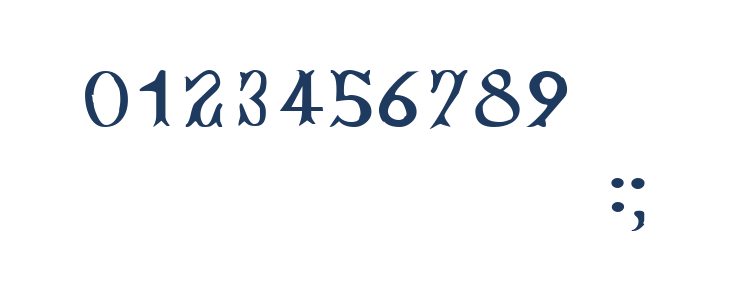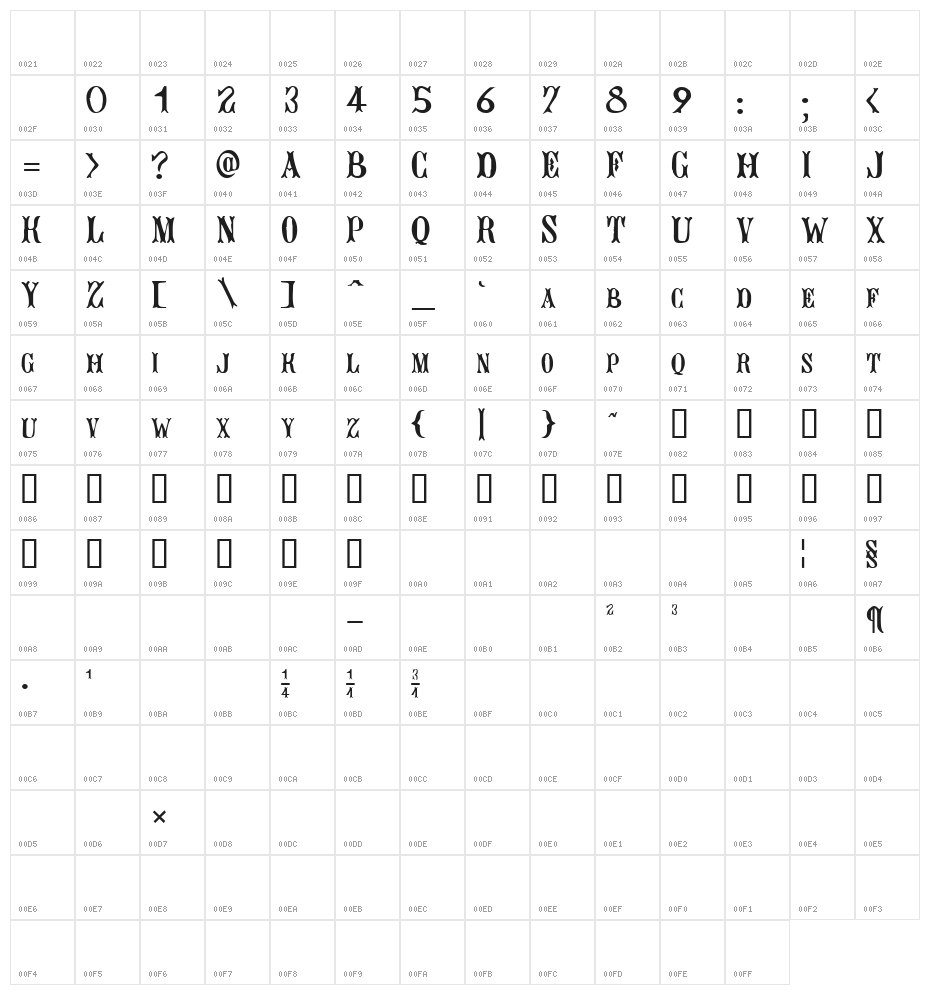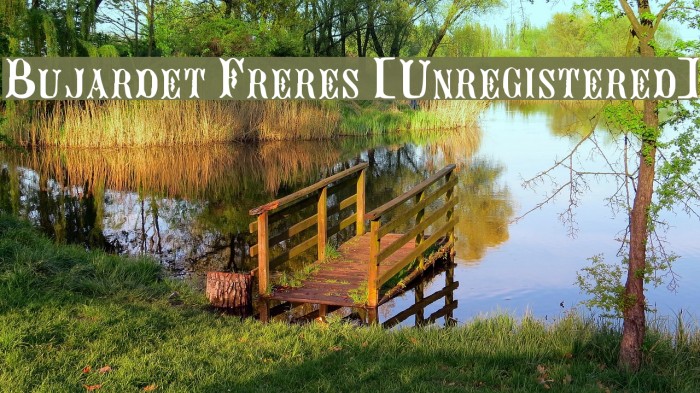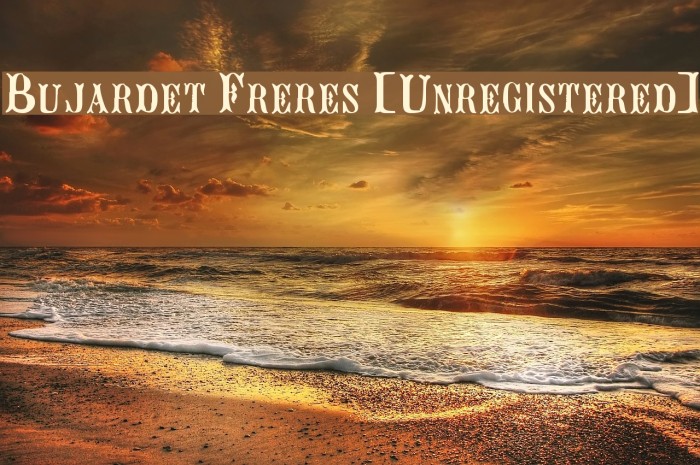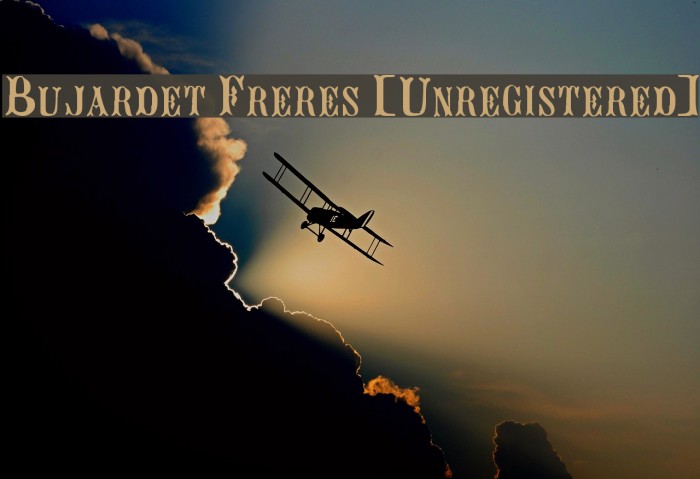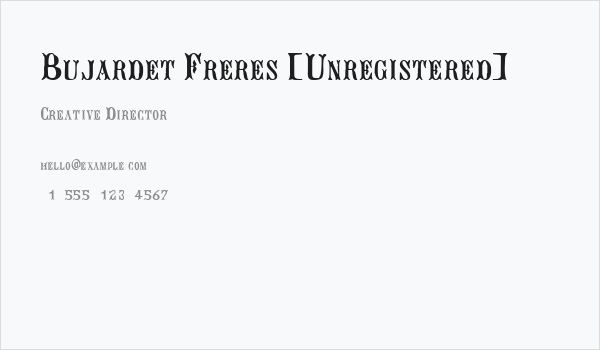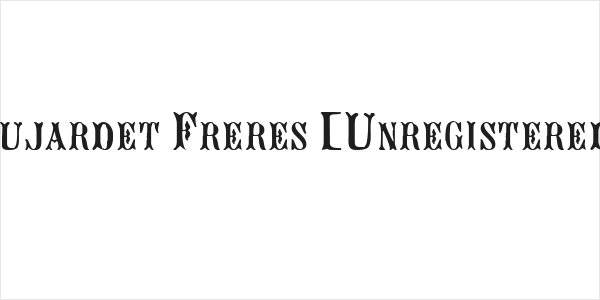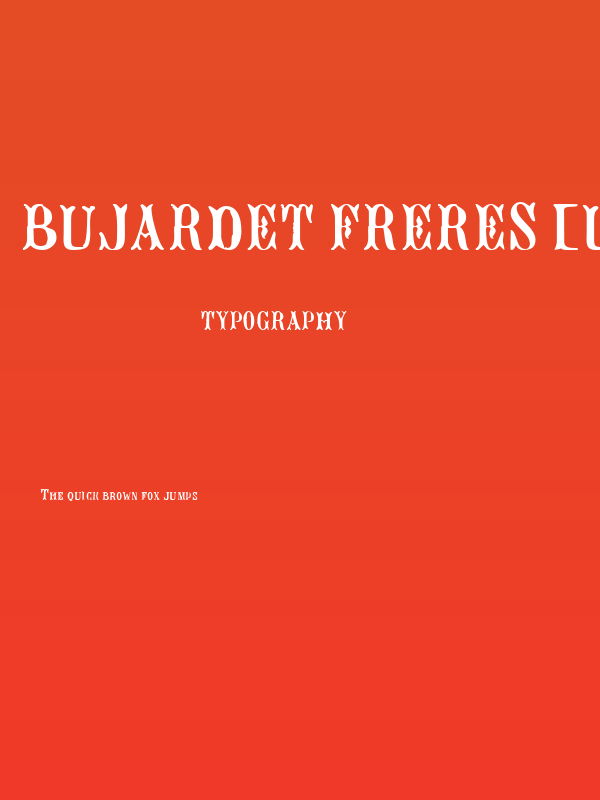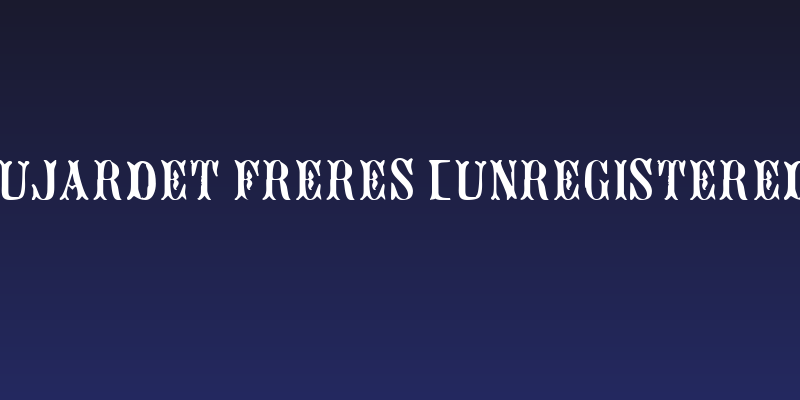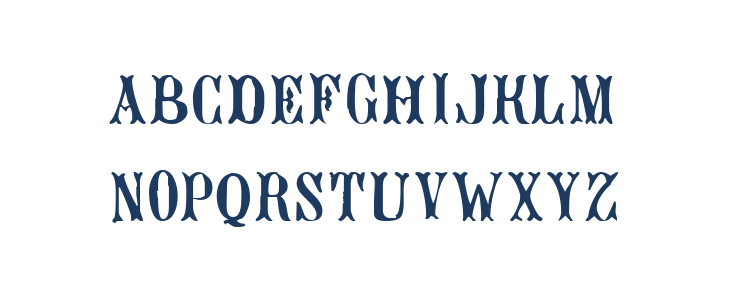
Bujardet Freres [Unregistered] Font
Bujardet Freres [Unregistered] Description
This font features a bold and decorative style with a distinct vintage flair. The characters are designed with intricate details, including sharp serifs and unique embellishments that give it a historical and ornate appearance. The uppercase letters are particularly striking, with a strong presence that commands attention. The numbers and special characters maintain the same decorative elements, ensuring a cohesive look across all glyphs. This font is ideal for projects that require a touch of elegance and sophistication, such as invitations, posters, or branding materials that aim to evoke a sense of nostalgia or classic charm.
| Use Case | Headlines, Logos, Decorative text |
| Proposed Projects | Ideal for vintage-themed invitations, posters, branding, and decorative projects. |